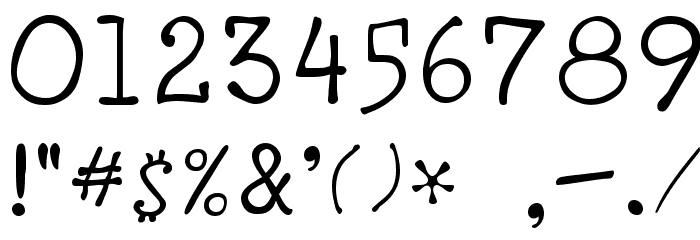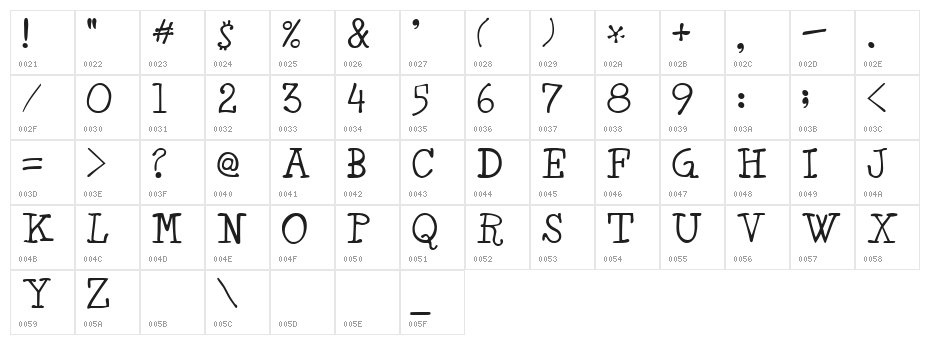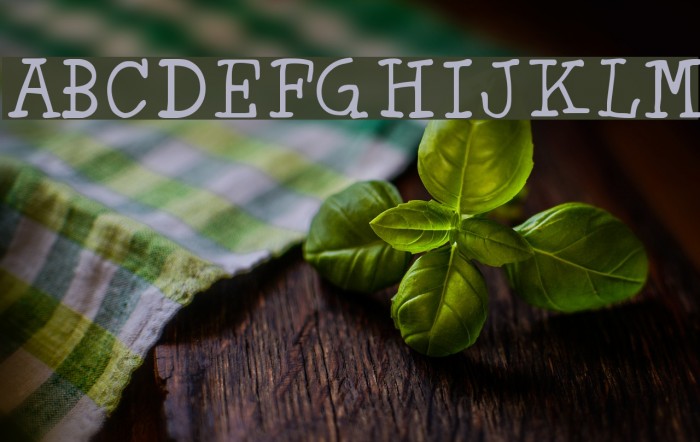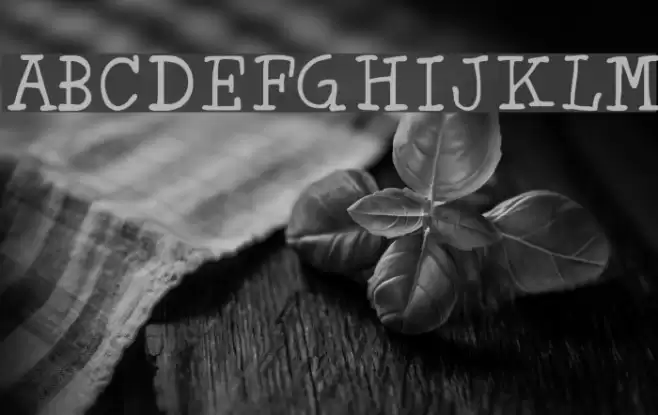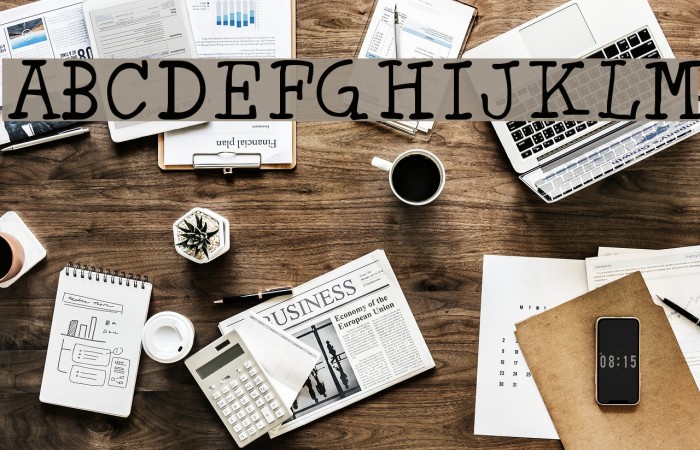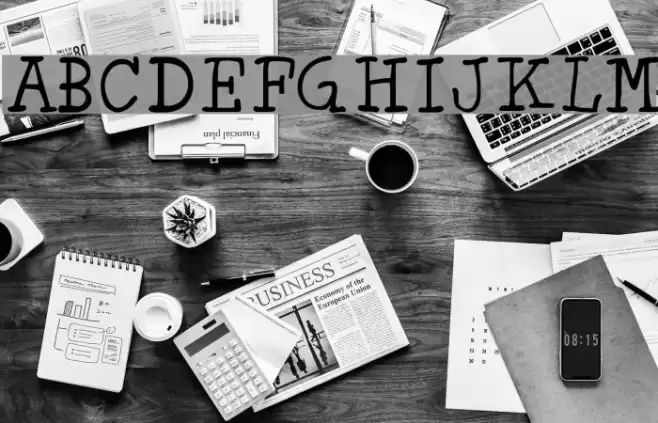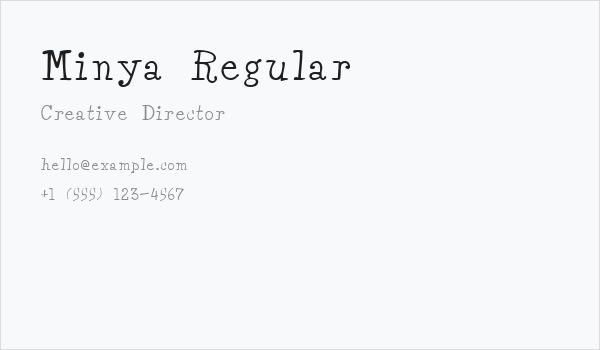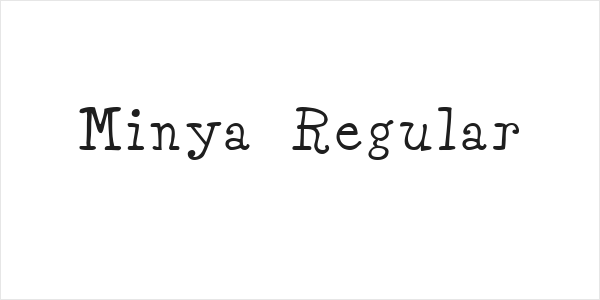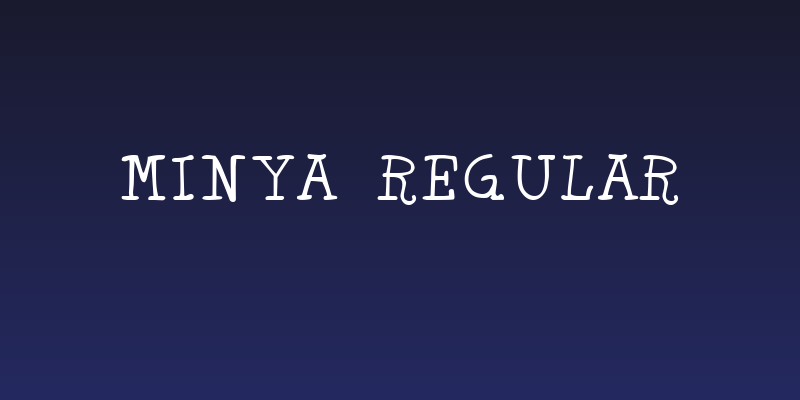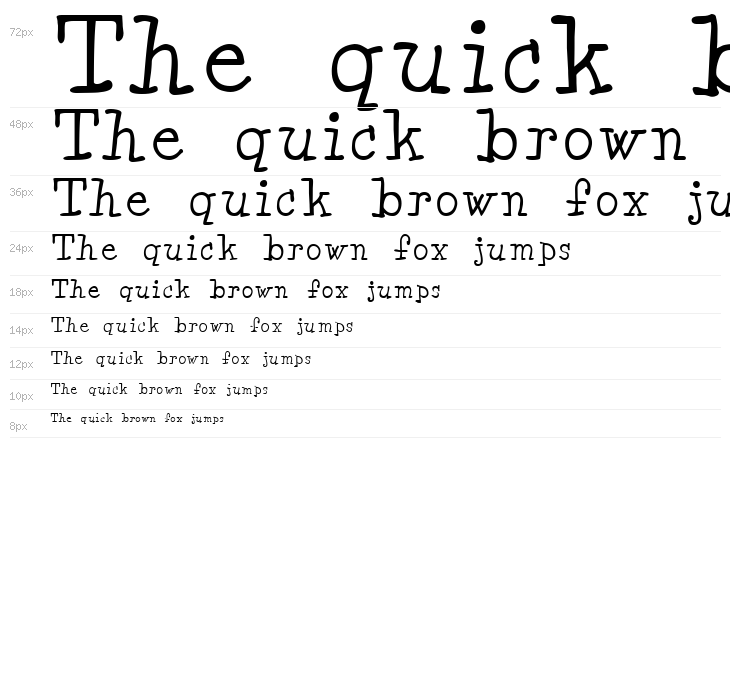
Minya Regular Font
Minya Regular Description
This font features a playful and whimsical style with a handwritten appearance. The characters have a slightly uneven baseline, adding to its casual and informal look. The strokes are bold and rounded, giving it a friendly and approachable feel. The uppercase letters are slightly taller than the lowercase, maintaining a consistent width throughout. The numerals are clear and legible, matching the overall style of the alphabet. Special characters are included, maintaining the same playful aesthetic. This font is suitable for projects that require a touch of personality and charm.